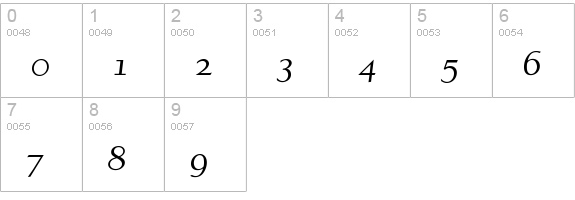
AlbertanH-Italic Font Details
AlbertanH-Italic is a distinctive, italic variant in the AlbertanH typeface family \xE2\x80\x94 well suited to design and typography projects.
Introducing AlbertanH-Italic font, a modern and elegant typeface designed to make your text stand out with sophistication and style. The sleek and slanted design of AlbertanH-Italic brings a touch of flair to any project, whether it be for branding, editorial design, or personal projects. This font features smooth curves and sharp serifs, creating a perfect balance between classic and contemporary aesthetics. The italicized version adds a dynamic and expressive quality to your text, making it perfect for conveying a sense of elegance and sophistication. And the best part? AlbertanH-Italic font is available for free download at FontsMarket.com! Now you can elevate your designs without breaking the bank, thanks to this high-quality and versatile typeface. Don't miss out on the opportunity to enhance your projects with the timeless beauty of AlbertanH-Italic font. Download it now and let your creativity shine!